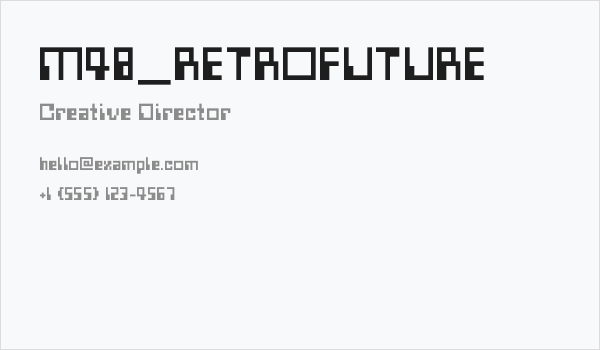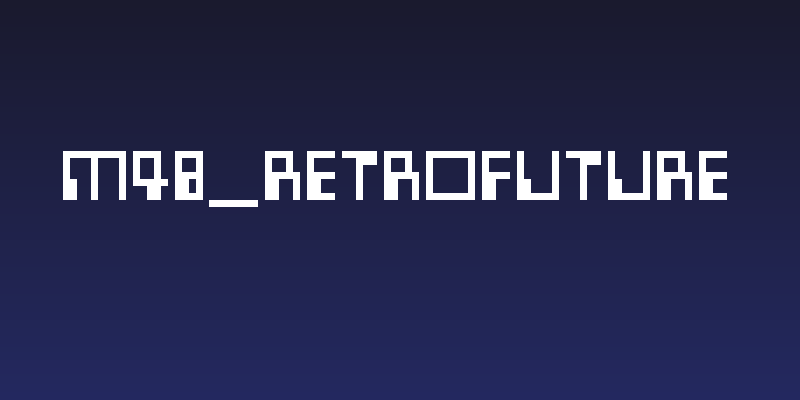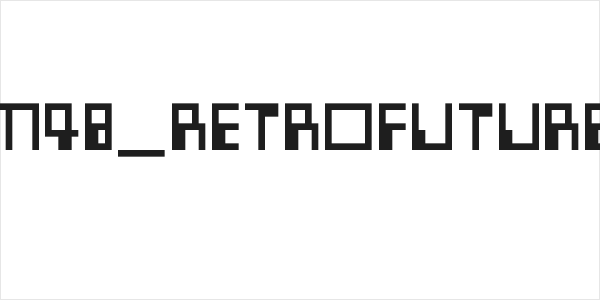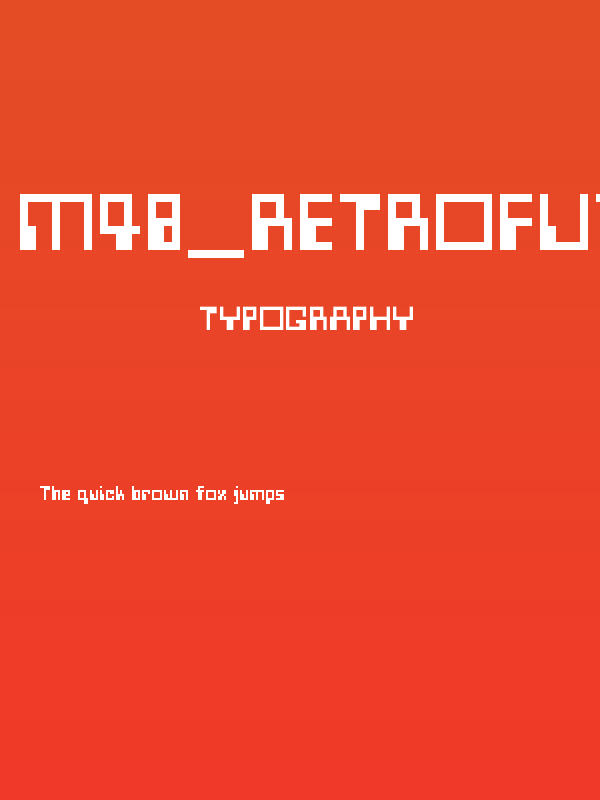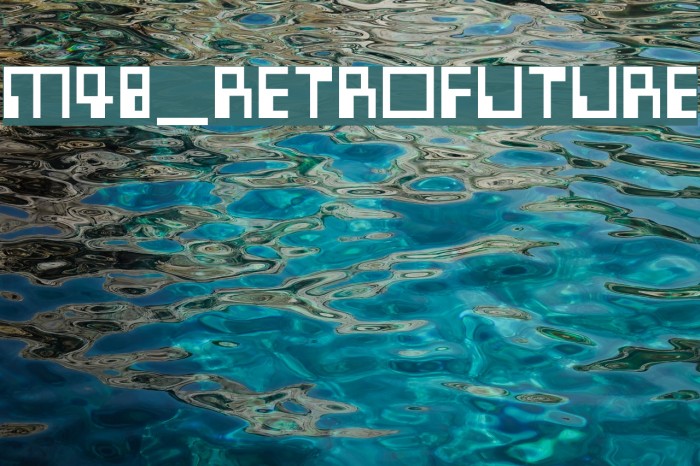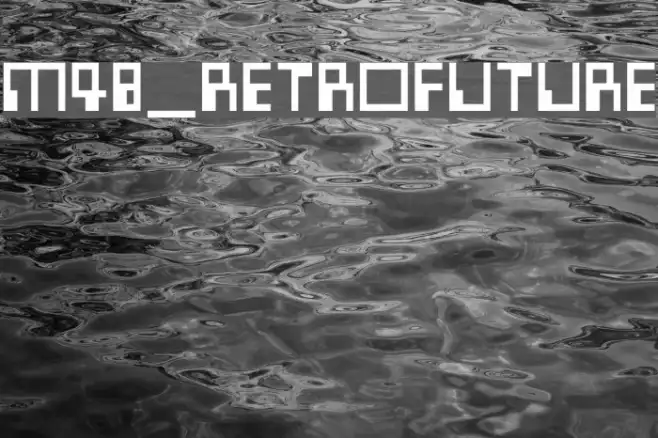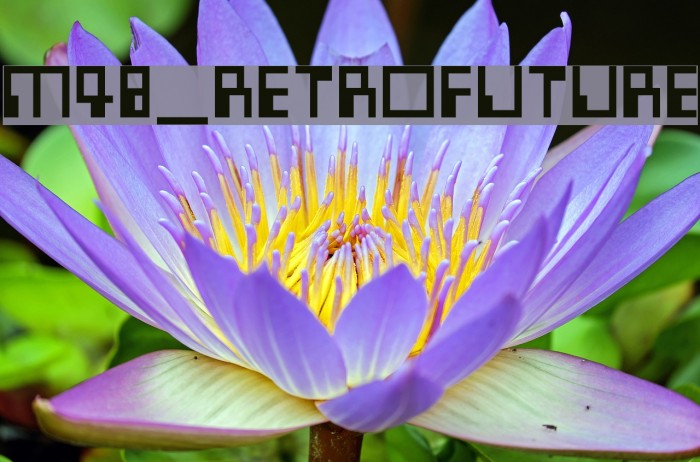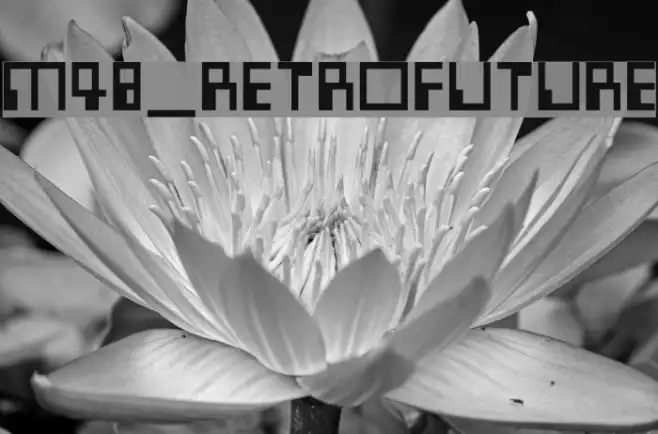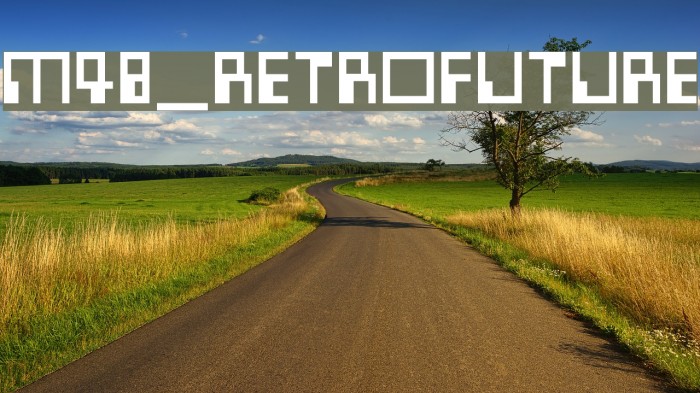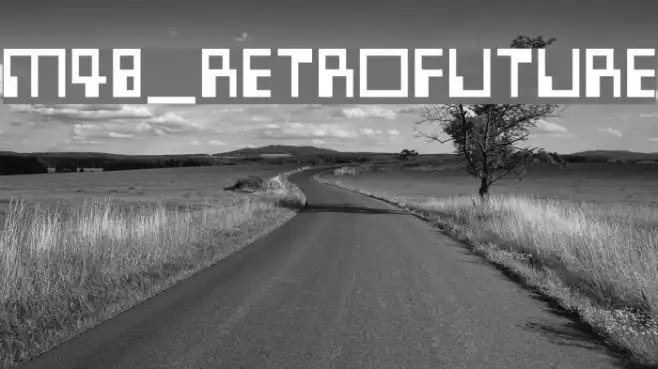
M48_RETROFUTURE Font
M48_RETROFUTURE Description
This font exhibits a bold, geometric style with a distinctly retro-futuristic aesthetic. The characters are composed of sharp, angular lines and blocky shapes, reminiscent of early digital or pixelated typefaces. The uppercase and lowercase letters maintain a consistent height, contributing to a uniform appearance. The numerals and special characters follow the same design principles, ensuring cohesion across all glyphs. This font's unique style makes it ideal for projects that aim to evoke a sense of nostalgia while maintaining a modern edge.
| Overall Style | Retro-Futuristic |
| Proposed Projects | Ideal for video game design, tech-themed posters, retro branding, and digital art projects. |